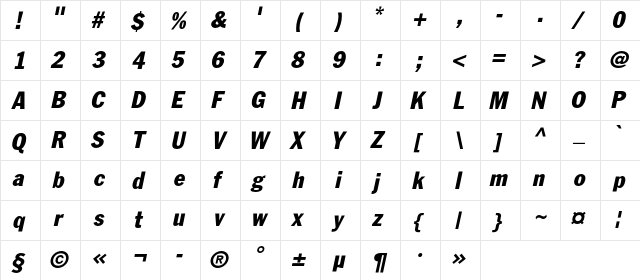
FagotCondensed Italic
Design Context for FagotCondensed Typeface
FagotCondensed offers clean, dependable letterforms without strong stylistic allegiance, making it a practical choice for designers who need flexibility. The dynamic lean of this cut emphasises speed and emphasis in any layout. The condensed width makes it efficient for tight spaces without sacrificing legibility.
Pro Tip: Use FagotCondensed for emphasis, pull quotes, and subheadings where its slanted energy can add rhythm to the layout.